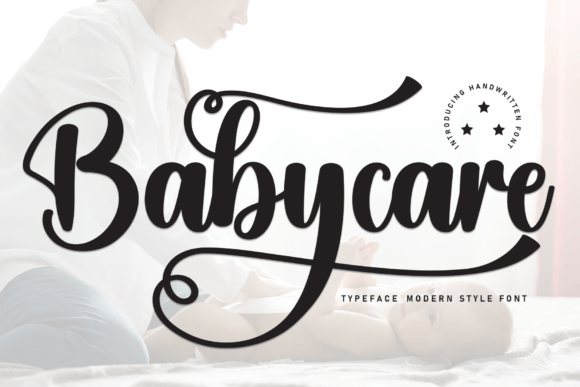
Unleash the Charm of Babycare Font: A Handcrafted Masterpiece for Your Creative Endeavors
In a world of digital expression, fonts hold the power to transform words into art, igniting emotions and leaving a lasting impression. Among the vast array of fonts, Babycare Font stands as a radiant gem, a testament to the artistry of Roronoa zoro.S.P.D.
Babycare Font is a captivating script font that effortlessly blends the elegance of calligraphy with a modern, refreshing touch. Its graceful curves and intricate details evoke a sense of timeless sophistication, while its contemporary flair ensures it remains relevant and impactful in today's digital landscape.
With Babycare Font, your words will dance across the screen, captivating your audience and leaving them spellbound. Its versatility extends from personal projects to professional endeavors, making it the perfect choice for invitations, branding, logos, social media posts, and more.
Embrace the allure of Babycare Font and elevate your creative projects to new heights. Let its enchanting strokes add a touch of magic to your designs, captivating hearts and leaving an indelible mark on the digital realm.
Key features of Babycare Font:
- Exquisite Handwritten Design: Each letter is meticulously crafted to embody the beauty and elegance of calligraphy, resulting in a font that exudes charm and sophistication.
- Contemporary Twist: While rooted in classic calligraphy, Babycare Font incorporates subtle contemporary elements, ensuring it remains fresh and relevant in modern design aesthetics.
- Versatility Across Projects: Its wide range of applications makes Babycare Font an indispensable tool for both personal and professional projects. From invitations and greeting cards to branding, logos, and social media posts, it effortlessly adapts to your creative vision.
- Emotional Connection: The font's inherent grace and charm create an emotional connection with your audience, captivating their attention and leaving a lasting impression.
- Endless Creative Possibilities: With Babycare Font, the possibilities are boundless. Let your imagination soar and explore new design horizons, knowing that this font will elevate your work and make it shine.